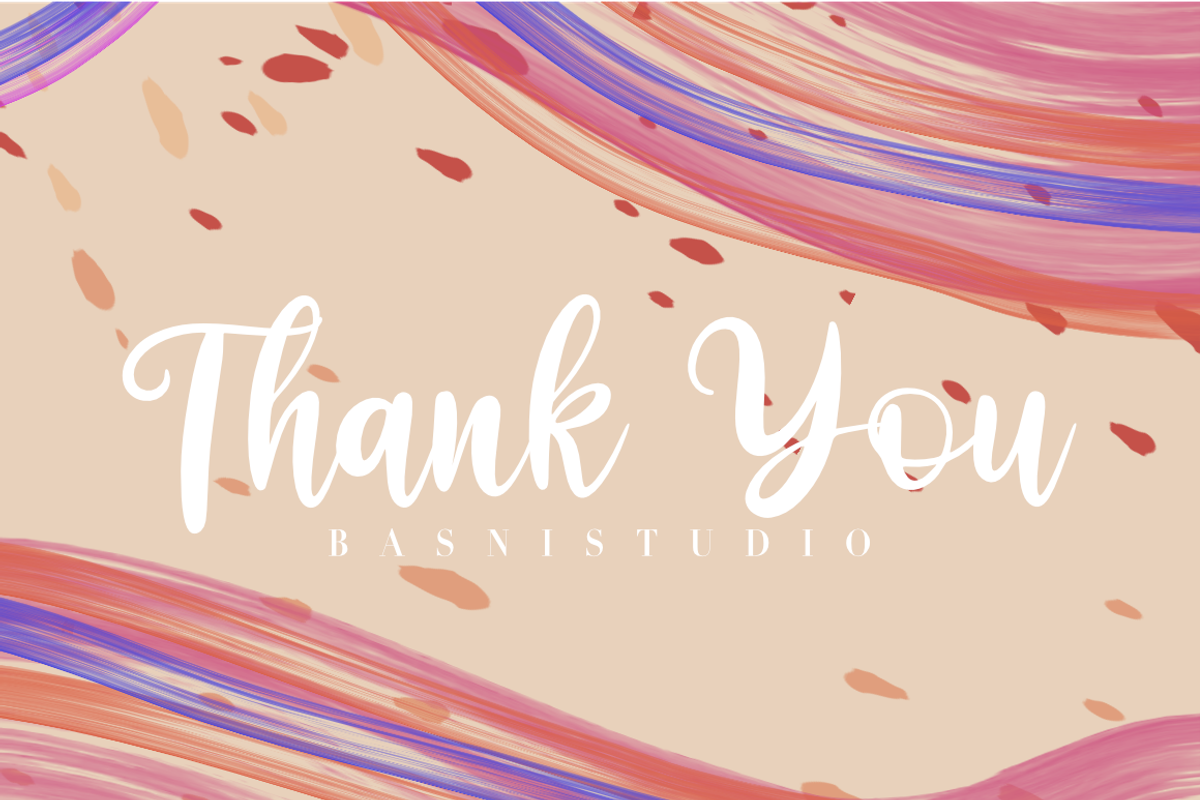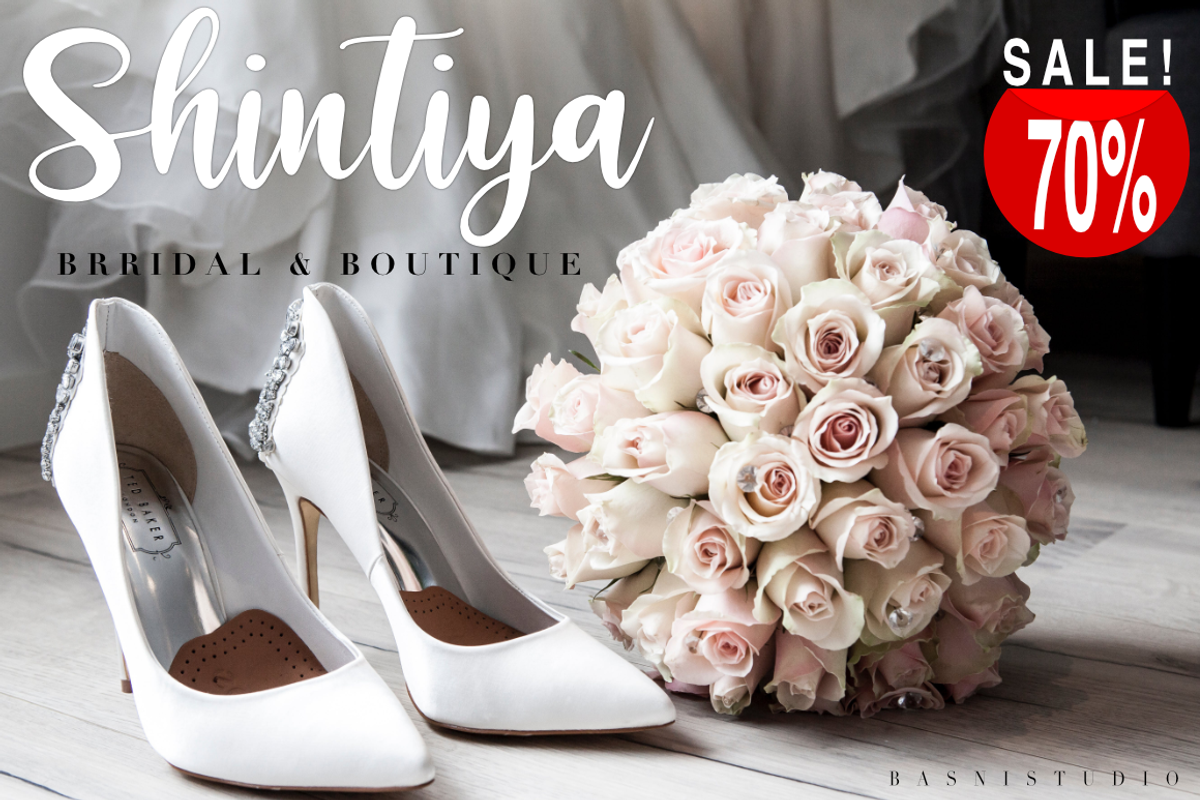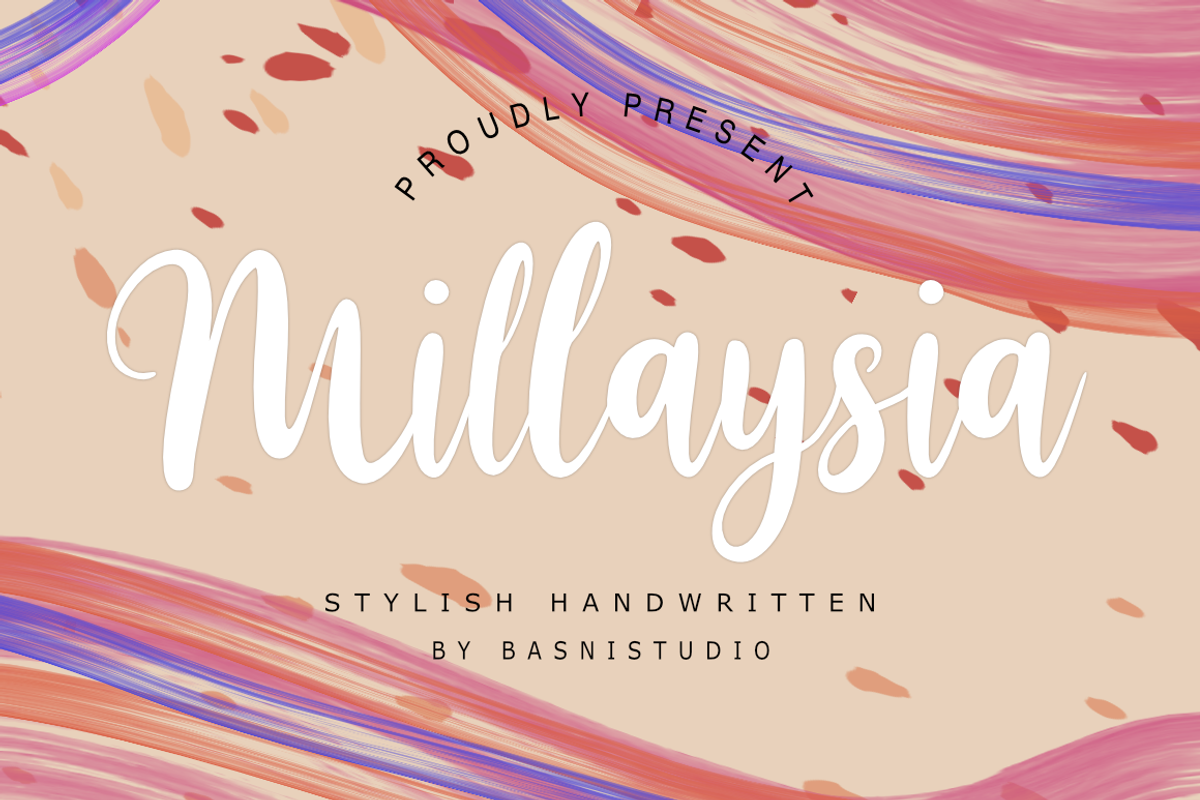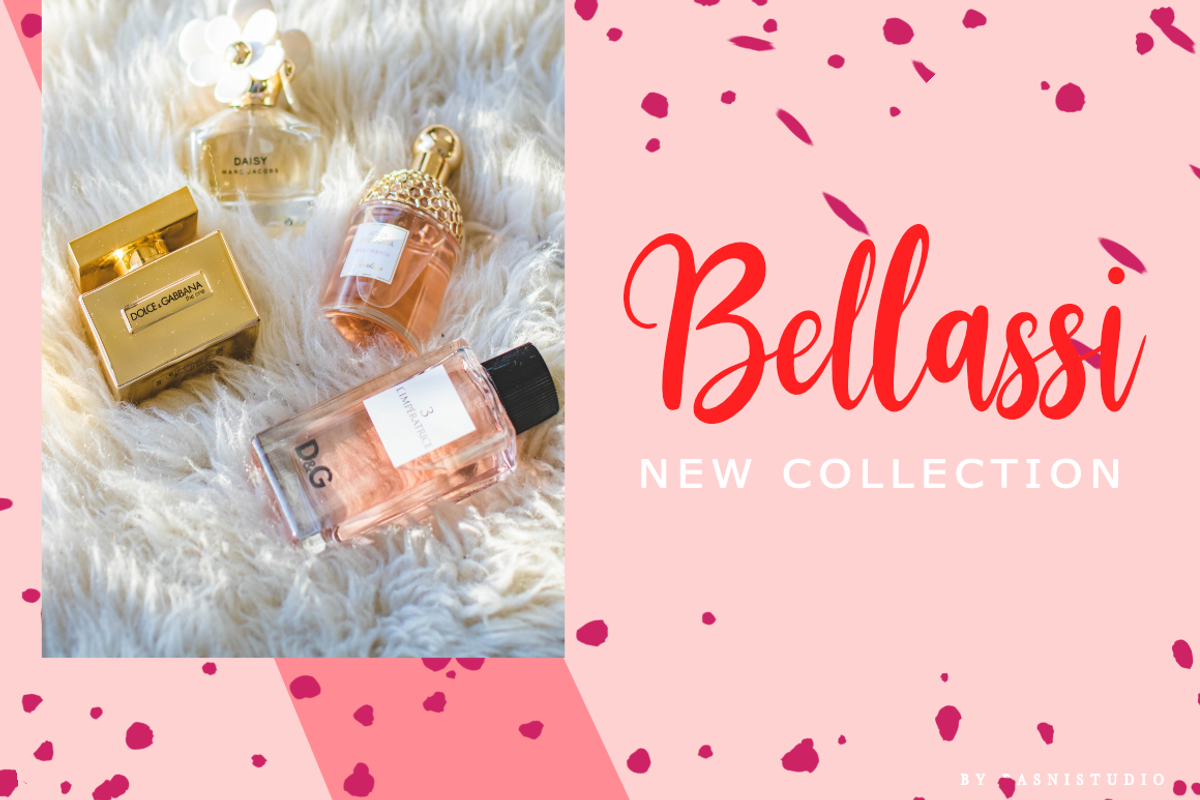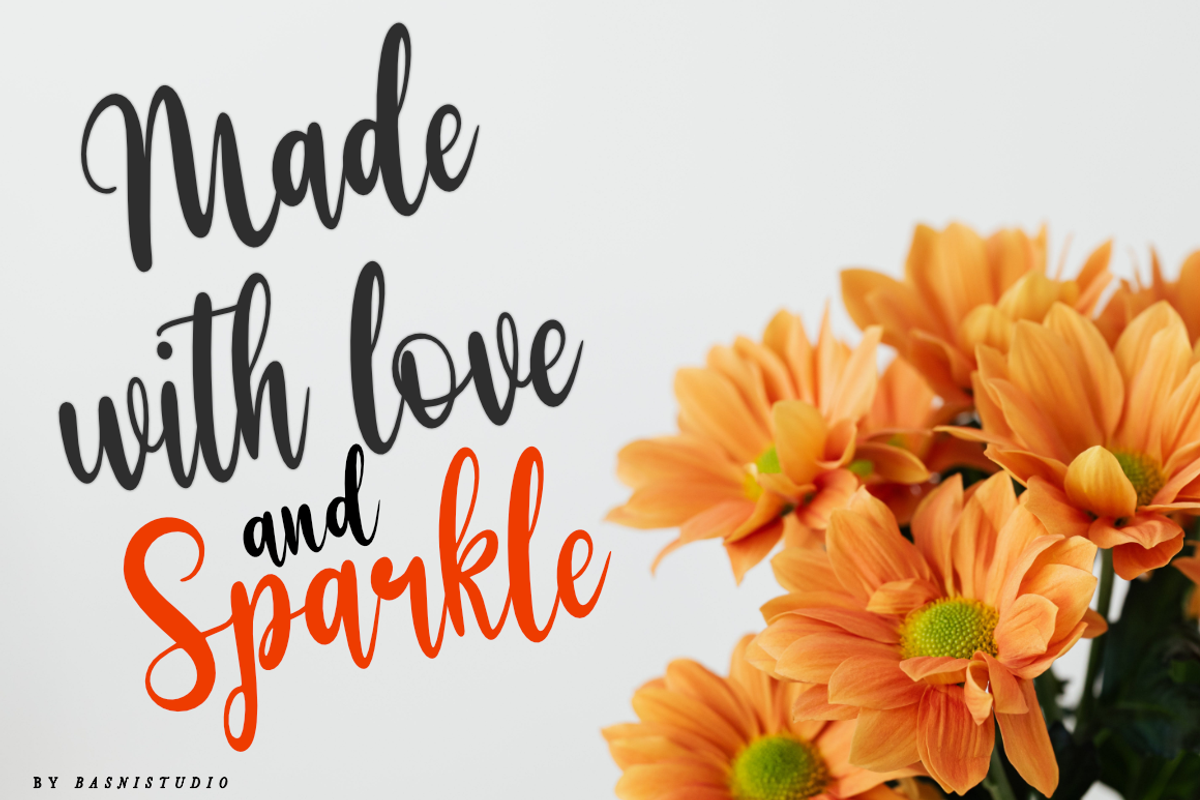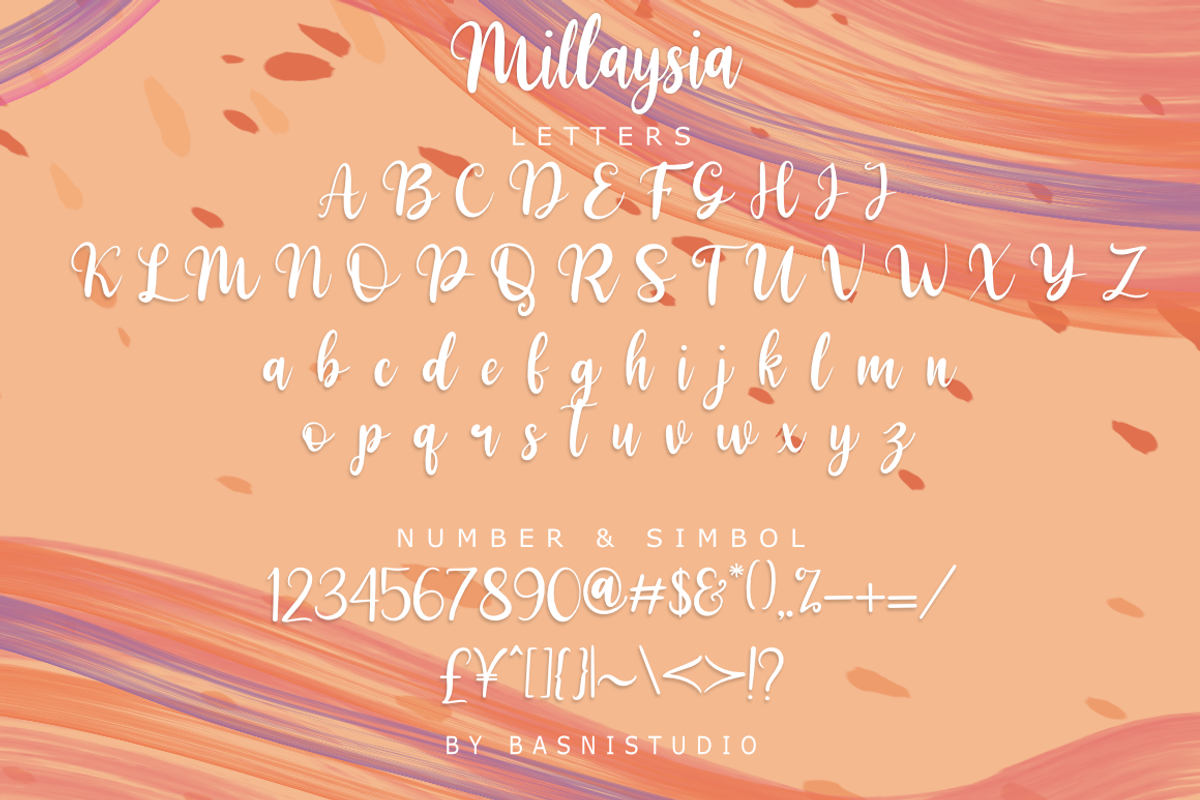
Millaysia Stylish Handwritten
Introducing Millaysia Stylish Handwritten Font
Millaysia Stylish Handwritten Font, made with Precision and Stylish, perfect for branding, websites, and editorial designs. Includes all Character letters, multilingual support, punctuation, binding. everything can be easily accessed using software that supports OpenType. What’s include: